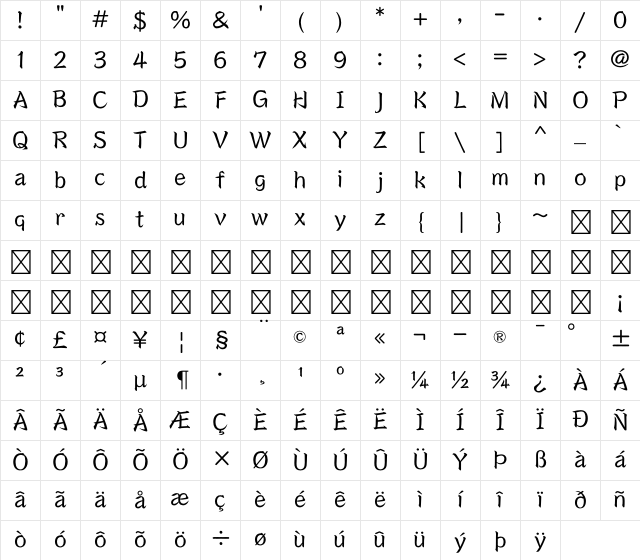
Complete Hiragino Gyosyo StdN W4 glyph index. Displaying only characters natively supported by Hiragino Gyosyo StdN W4 font.
Hiragino Gyosyo StdN is a composed and adaptable typeface that performs quietly and consistently across a wide range of design contexts.
Who designed the Hiragino Gyosyo StdN W4 font?
This font was published by Dainippon Screen Mfg. Co., Ltd.. Check the technical specs section for copyright and designer details.